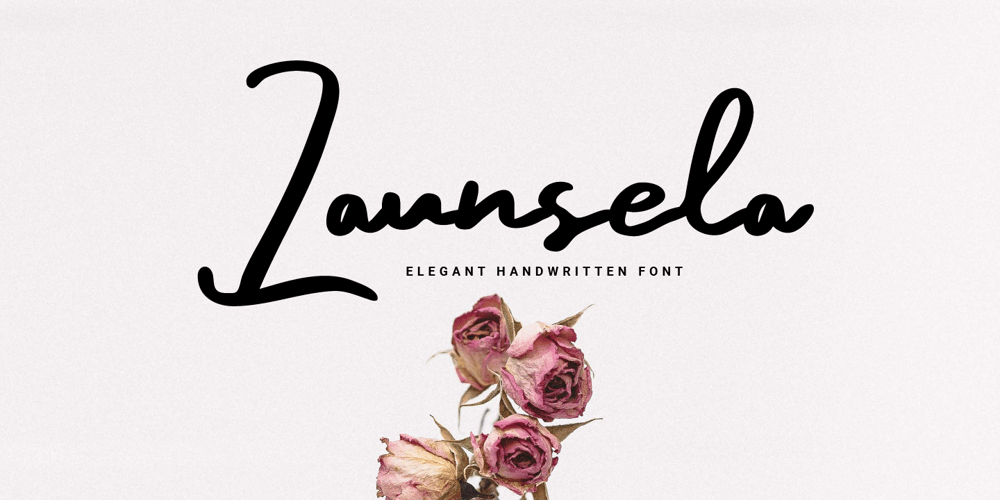
Launsela Font Family was designed by Prio Nurokhim Aji and published by Prioritype. Launsela contains 1 styles and family package options. This elegant, minimalist and beautiful handwritten font can be applied in various print or digital media such as creative posts, business cards, wedding invitations, crafts, photographer watermarks, logos and much more. For reference, see preview.Features:-Uppercase-Lowercase-Numeral-Punctuation-MultilingualThanks.